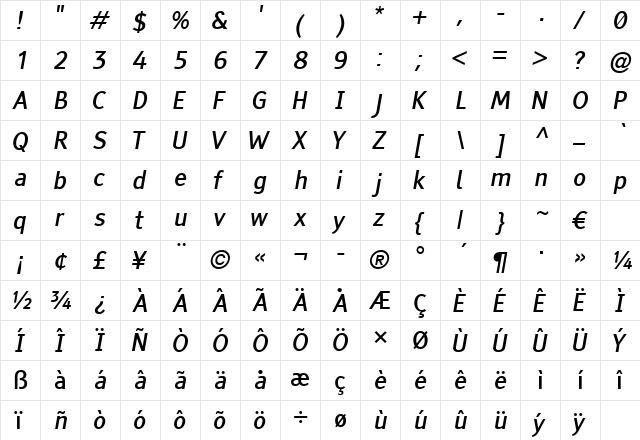
Tiresias PCfont Z Italic
Design Context for Tiresias PCfont Z Typeface
Tiresias PCfont Z offers clean, dependable letterforms without strong stylistic allegiance, making it a practical choice for designers who need flexibility. The slanted form adds forward momentum and visual energy.
Pro Tip: Try Tiresias PCfont Z for annotation and caption copy alongside an upright companion — the contrast in angle creates a dynamic but ordered typographic system.